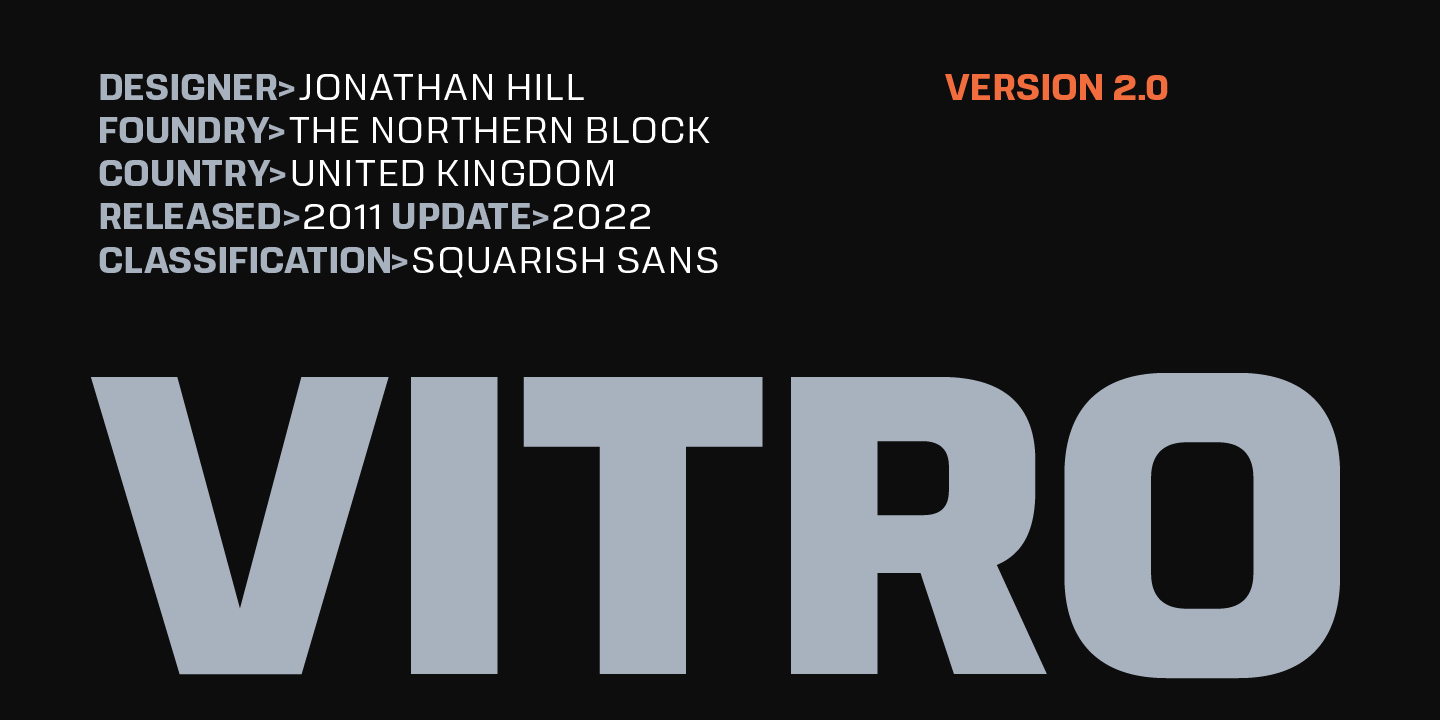
Vitro Font is ideal for modern architecture signage, glass company branding, contemporary art galleries, minimalist design studios, high-tech laboratory materials, crystal clear product packaging, transparent material advertising, sleek automotive displays, futuristic interface designs, and precision optics marketing.
What makes Vitro Font exciting is its crystalline clarity and glass-like transparency that creates an immediate impression of purity, precision, and modern sophistication. This striking typeface embodies the essence of vitrum (glass in Latin) with its clean geometric structure and pristine letterforms that appear to be carved from pure crystal. The font's transparent character conveys innovation, clarity of thought, and the cutting-edge technology associated with glass and optical industries.
Vitro Font family includes multiple weights with crystal-clear character designs featuring precise geometric construction and clean terminals. The typeface maintains exceptional legibility while showcasing its distinctive glass-inspired personality through meticulously crafted letterforms that reflect light and create visual depth like fine optical glass.
Design professionals select Vitro Font Free Download for projects requiring contemporary clarity and technological sophistication. This exceptional typeface represents the intersection of traditional craftsmanship and modern innovation, combining precise typographic engineering with crystalline visual appeal. The perfectly transparent characters ensure memorable brand recognition across all applications, making it indispensable for glass manufacturers, optical companies, architectural firms, and any brand seeking to communicate transparency, precision, and forward-thinking innovation in today's clarity-focused marketplace where honesty and technological advancement define success.